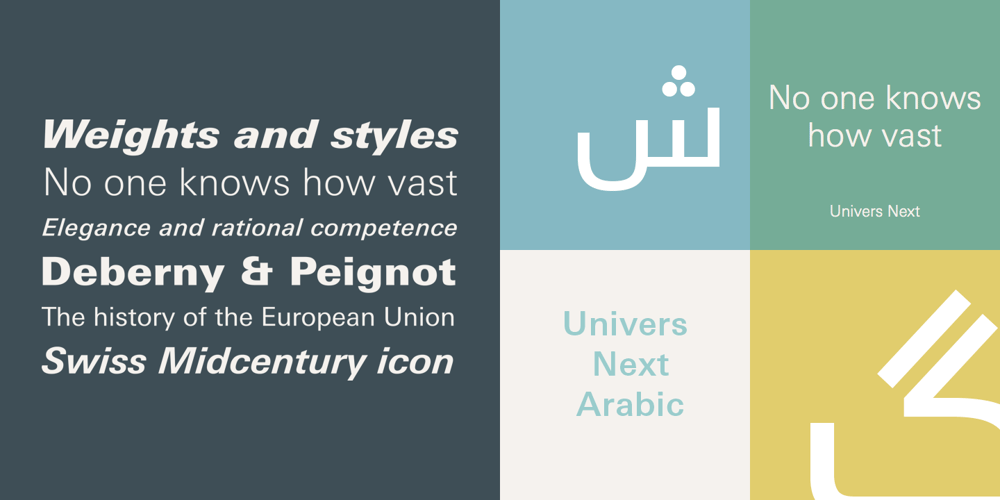
Univers Next Arabic Font Family was designed by Adrian Frutiger, Nadine Chahine and published by Linotype. Univers Next Arabic contains 3 styles and family package options. Univers Next Arabic is designed by Lebanese designer Nadine Chahine as a companion to the Latin typeface Univers Next and with the consulting of Adrian Frutiger. It is a modern Kufi design with large open counters and low contrast. It is mainly designed to work in titles and short runs of text. Its contemporary look makes it perfect for corporate branding as well as for advertising work. It is also well suited for user interfaces and low resolution display devices. The font includes the basic Latin part of Univers Next and support for Arabic, Persian, and Urdu. It also includes proportional and tabular numerals for the supported languages.